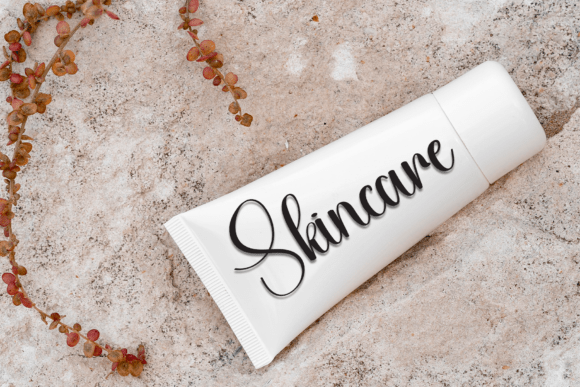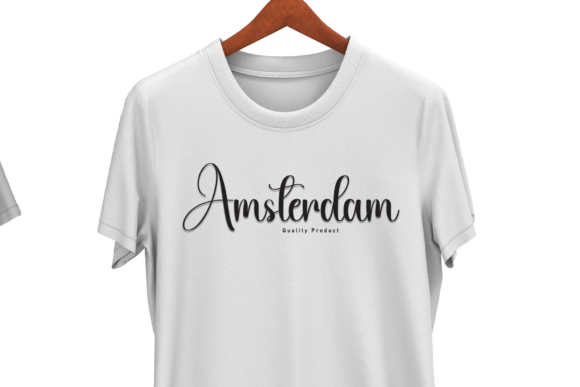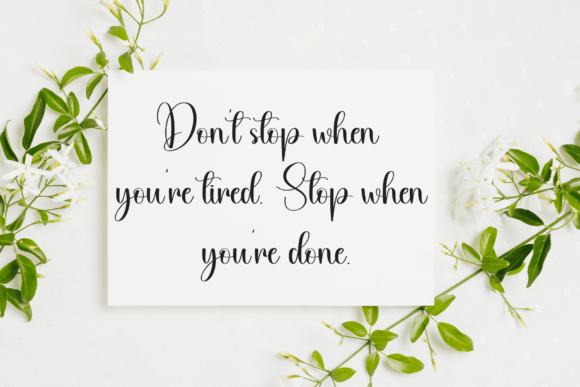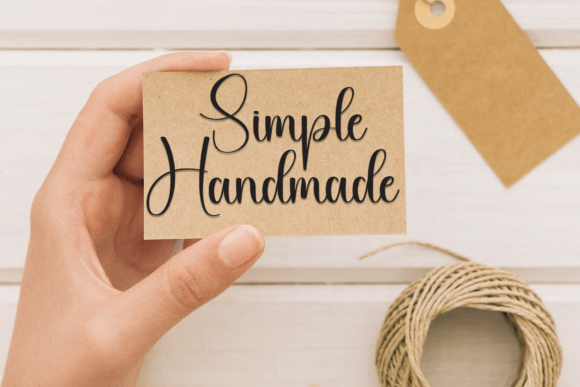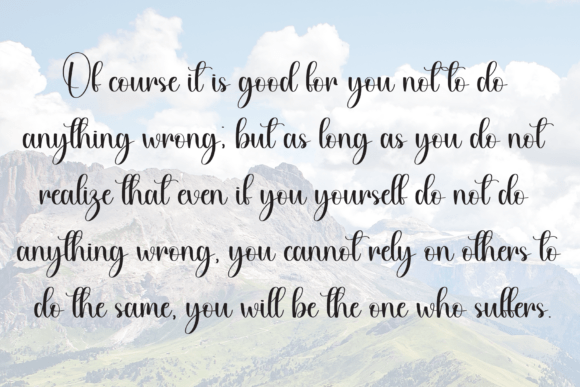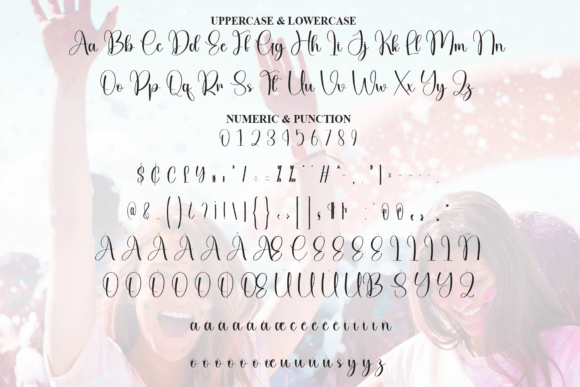
Introducing Bestival Font: Elevate Your Designs with Elegance and Playfulness
In the world of typography, fonts play a crucial role in conveying the tone and personality of a brand or design. For designers and crafters looking to add a touch of modern elegance and playfulness to their projects, Bestival Font is an exceptional choice. This stylish handwritten script font is designed to blend sophistication with a charming, personal feel, making it perfect for a wide range of applications.
What Makes Bestival Font Stand Out?
Bestival Font is characterized by its fluid strokes and charming curves, which give it a unique and distinctive appearance. Unlike more traditional fonts, Bestival offers a refreshing blend of modernity and approachability. Its elegant flow and dynamic letterforms make it an eye-catching addition to any design, whether you’re working on logos, packaging, invitations, or digital content.
Key Features of Bestival Font
- Modern Elegance: Bestival Font boasts a contemporary aesthetic that instantly elevates the sophistication of your designs.
- Playful Touch: Despite its elegance, the font retains a playful charm that can add a fun and creative spin to your projects.
- Fluid Strokes: The fluidity of the strokes in Bestival Font gives it a handcrafted feel, making each letterform unique and full of character.
- Charming Curves: The carefully crafted curves and swirls add a decorative element to the font, making it perfect for designs that require a bit of flair.
- Versatility: Bestival Font is incredibly versatile and can be used across various mediums, from print to digital.
Ideal Uses for Bestival Font
Bestival Font’s unique combination of elegance and playfulness makes it suitable for a variety of design projects. Here are some of the ideal uses for this versatile font:
- Logos: Create a memorable brand logo that stands out with Bestival Font’s distinctive style.
- Packaging: Add a touch of sophistication and charm to your product packaging, making it more appealing to customers.
- Invitations: Whether it’s a wedding invitation, birthday party, or corporate event, Bestival Font can add a personal and elegant touch.
- Digital Content: Enhance your website, social media posts, or blog with a font that captures attention and conveys your message with style.
Why Choose Bestival Font?
Choosing the right font for your design project can be daunting, but Bestival Font offers several compelling reasons to make it your top pick:
- Unique Style: Its blend of modern elegance and playful charm is hard to find in other fonts.
- Easy to Read: Despite its decorative nature, Bestival Font remains highly legible, making it practical for a variety of uses.
- Customizable: The font’s design allows for easy customization, enabling you to tailor it to fit your project’s specific needs.
- Support for Multiple Languages: Bestival Font supports multiple languages, making it a great choice for global brands or projects with an international audience.
Tips for Using Bestival Font Effectively
To get the most out of Bestival Font, consider the following tips:
- Pair it with Complementary Fonts: Use Bestival Font as a headline font and pair it with a simpler sans-serif font for body text to create contrast and visual interest.
- Adjust Letter Spacing: For a more elegant look, increase the letter spacing slightly to give your text a luxurious feel.
- Experiment with Colors: Bestival Font works well in various colors, but it’s particularly striking in rich, bold hues or metallic tones.
Bestival Font is a stylish and versatile handwritten script font that can add a touch of modern elegance and playful charm to any design. Its fluid strokes, charming curves, and unique style make it an excellent choice for designers and crafters looking to create memorable and impactful projects. Whether you’re designing logos, packaging, invitations, or digital content, Bestival Font is sure to elevate your designs and leave a lasting impression.
So why settle for ordinary fonts when you can make a statement with Bestival Font? Discover the difference it can make in your designs and bring your creative visions to life with elegance and playfulness.